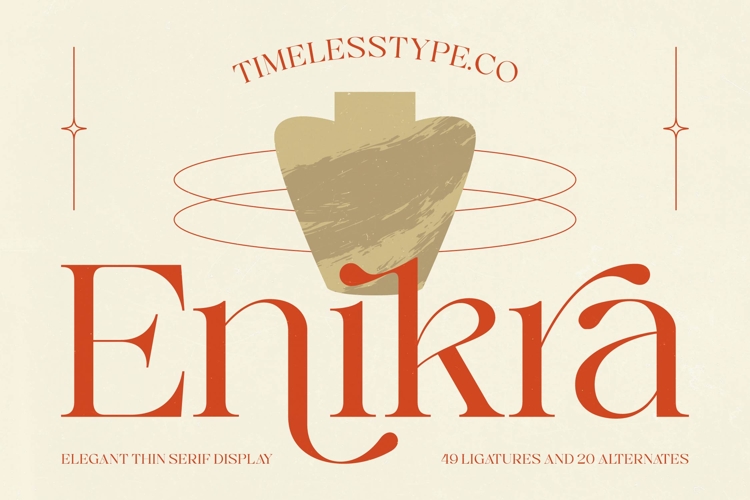
Enikra - Elegant Thin Serif Display is equipped with 49 ligatures and 20 stylistic alternates, providing designers with the tools necessary to craft unique and memorable logotypes. These decorative elements transform standard text into bespoke artwork, allowing for complex, harmonious typographic compositions that elevate simple headlines into stunning focal points.